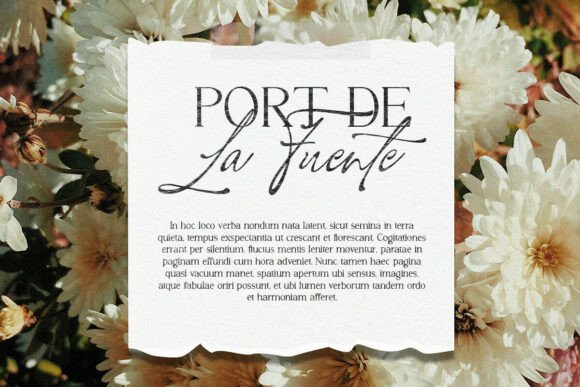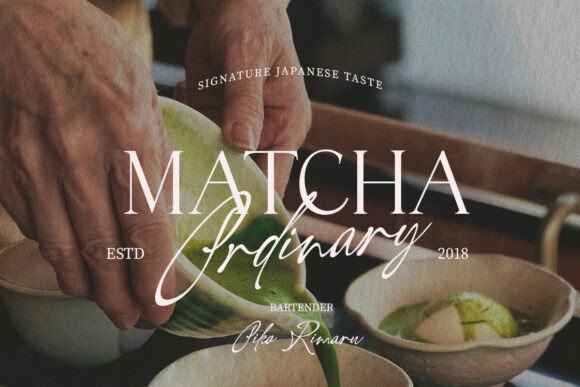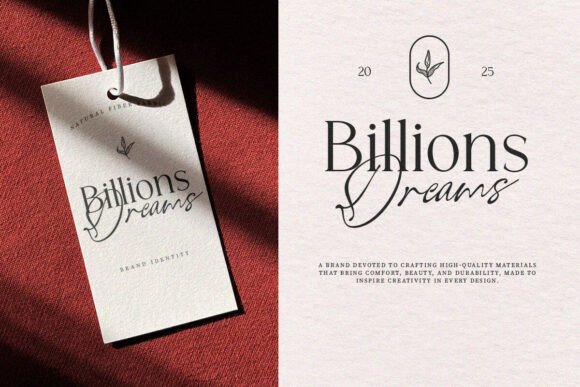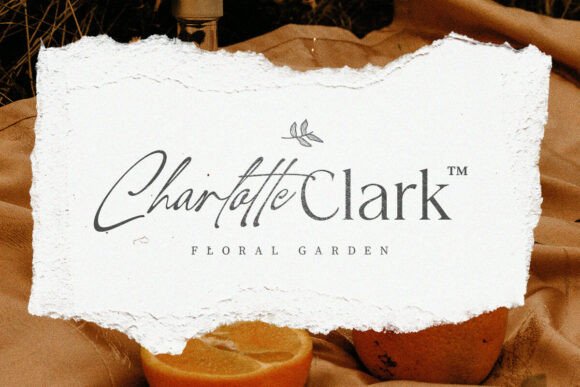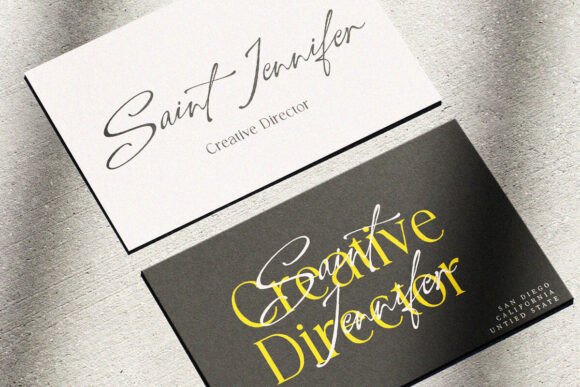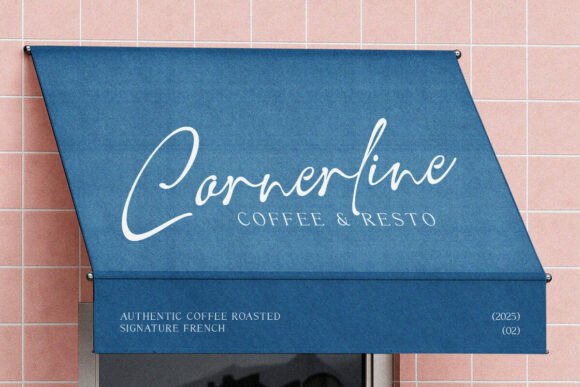
Harmonizing Your Designs with Dreams Symphony Duo Font
Have you ever spent hours perfecting the perfect layout, only to feel like something’s missing? The perfect font can make all the difference. That’s where Dreams Symphony Duo Font comes in – a harmonious pair of fonts designed to bring elegance and versatility to your creative projects.
This thoughtful duo consists of a graceful handwritten style and a classic serif typeface, expertly crafted to complement each other. Whether you’re looking to add a personal touch or a professional edge, Dreams Symphony Duo Font has got you covered. As a designer, you’ll appreciate the value of having a single font duo that can effortlessly adapt to a wide range of projects – from logos and invitations to social media and magazines.
With PUA encoding included, every special character and decorative element is easily accessible, making it a breeze to bring your creative vision to life. Get ready to compose a visual symphony of elegance and dreams with the Dreams Symphony Duo Font.
Dreams Symphony Duo Font Key Features
- Unique Characteristics: The Dreams Symphony Duo Font features a harmonious blend of modern and classic elements, making it ideal for various design applications, including logos, branding, and typography.
- Number of Glyphs: The font includes a vast range of glyphs, including Latin, Cyrillic, and Greek alphabets, as well as punctuation and special characters.
- Font Style: The Dreams Symphony Duo Font is available in both Regular and Bold styles, allowing designers to add depth and emphasis to their text.
Dreams Symphony Duo Font Review
I recently had the chance to work with the Dreams Symphony Duo font, and I must say it’s a unique and captivating choice for designers. Here’s what I think works well:
- ✨ The font’s elegant and symmetrical design creates a sense of harmony and balance, making it perfect for titles and headings.
- ✨ The font family includes a wide range of weights, from light to bold, allowing for flexibility in design and ensuring that the text remains readable.
- ✨ The font’s modern and sleek aesthetic makes it suitable for a variety of industries, from fashion to technology.
- ⚠️ The font may not be the best choice for body text, as it can be a bit difficult to read in smaller sizes.
Overall, I think the Dreams Symphony Duo font is a great addition to any designer’s toolkit. While it may have some limitations, its unique design and flexibility make it a valuable choice for creating visually striking designs.
To get the most out of Dreams Symphony Duo Font, use it in conjunction with other elegant and whimsical design elements. Pair it with soft pastel colors and delicate illustrations to create a dreamy and ethereal atmosphere.
Dreams Symphony Duo Font is perfect for:
- Baby shower invitations and decorations
- Photography and art projects
- Stationery and greeting cards
Great Vibes is a beautiful, elegant script font that is perfect for creating a sophisticated and romantic atmosphere. It is ideal for use in wedding invitations, birthday cards, and other special occasions where a touch of elegance is required. Great Vibes has a similar feel to Dreams Symphony Duo, but with a more refined and delicate touch.
Carolyna Pro is a modern, stylish script font that is perfect for creating a luxurious and high-end feel. It is ideal for use in branding, advertising, and other applications where a touch of sophistication is required. Carolyna Pro has a similar level of elegance to Dreams Symphony Duo, but with a more contemporary and edgy feel.
What is the recommended font size for optimal readability with the Dreams Symphony Duo Font?
The recommended font size for optimal readability with the Dreams Symphony Duo Font is between 12-24 points, depending on the intended use and the size of the text area. For body text, 14-18 points is a good starting point, while headings can be set to 24-48 points or larger for maximum impact.